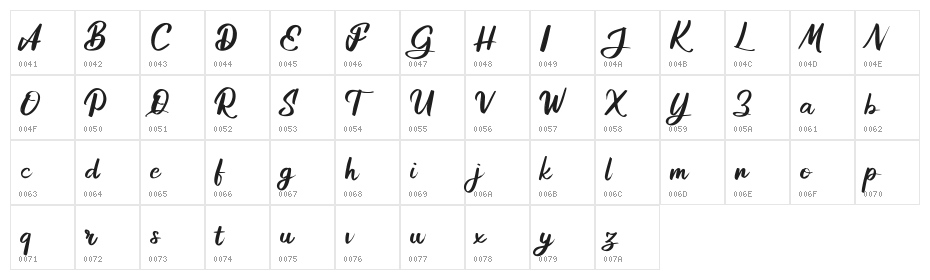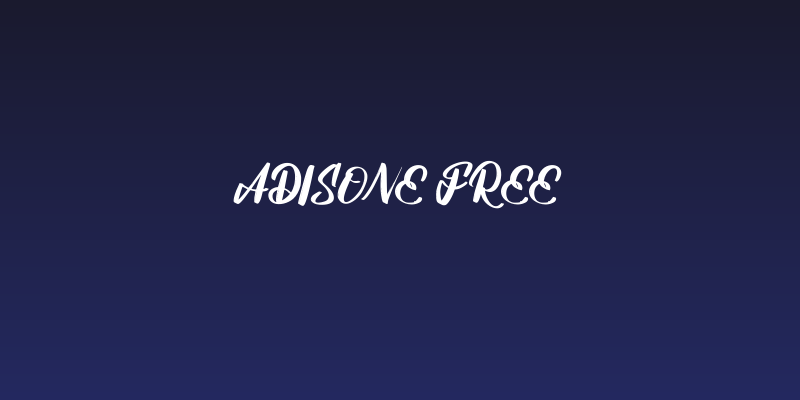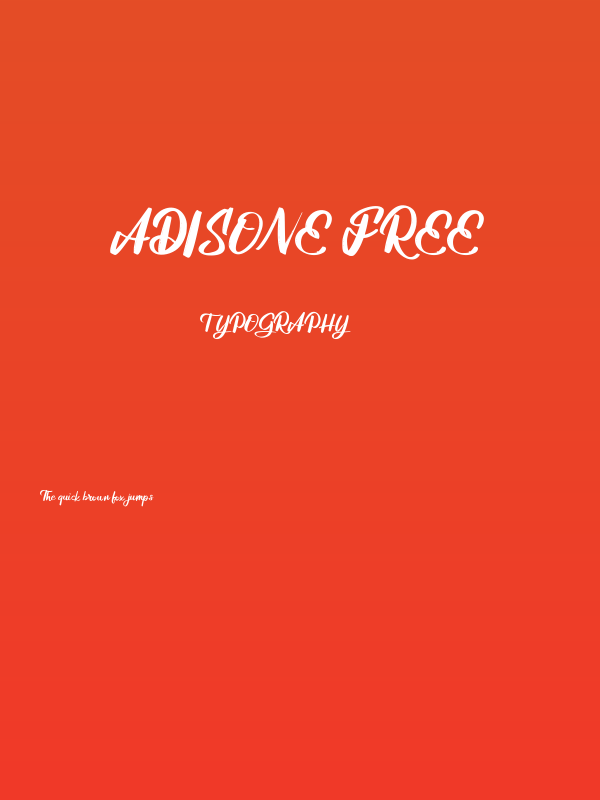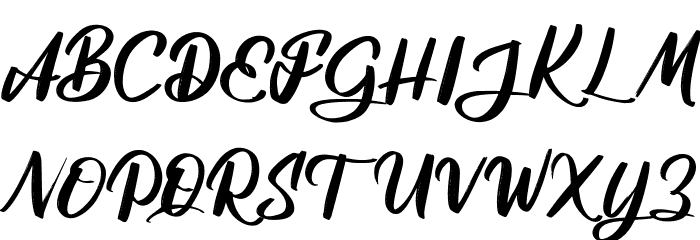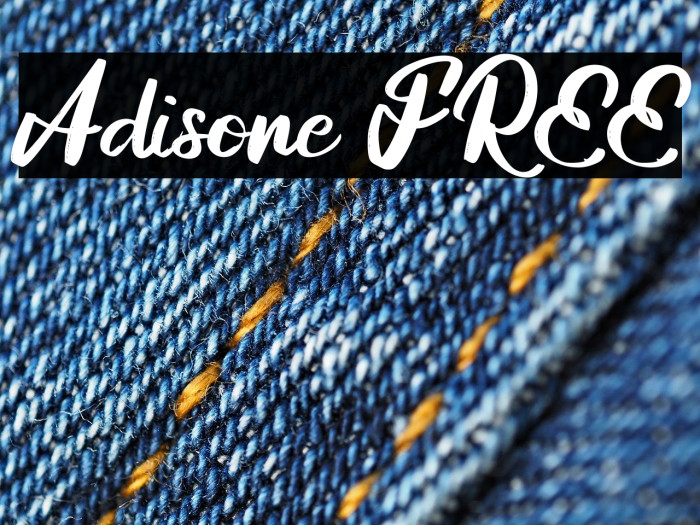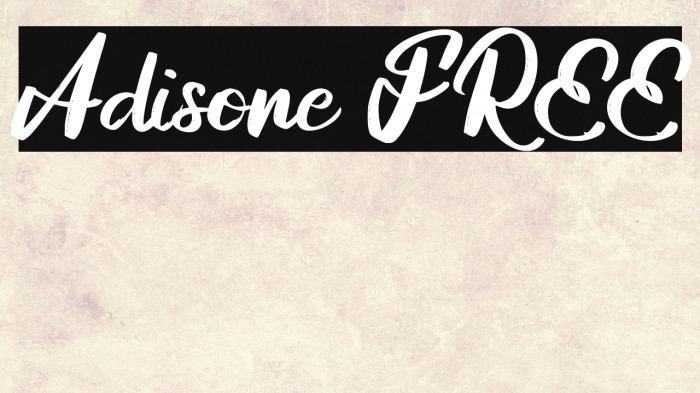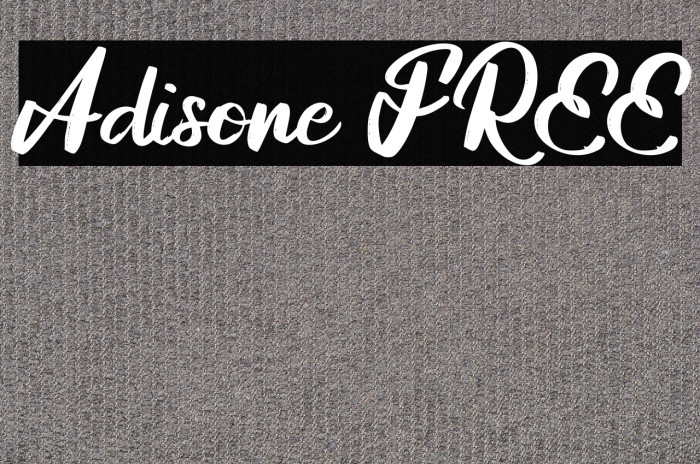
Adisone FREE Font
Adisone FREE Description
This font features a dynamic and flowing script style, characterized by its elegant and cursive letterforms. The uppercase letters exhibit a bold and confident presence, with sweeping curves and loops that convey a sense of movement and grace. The lowercase letters maintain a consistent style, with smooth connections and a slightly playful touch. The overall appearance is both sophisticated and approachable, making it suitable for a variety of creative applications. The font's design includes a harmonious balance between thick and thin strokes, adding to its visual appeal and readability.
| Use Case | Logos, Invitations, Headlines |
| Proposed Projects | Ideal for wedding invitations, branding, logos, and social media graphics. |